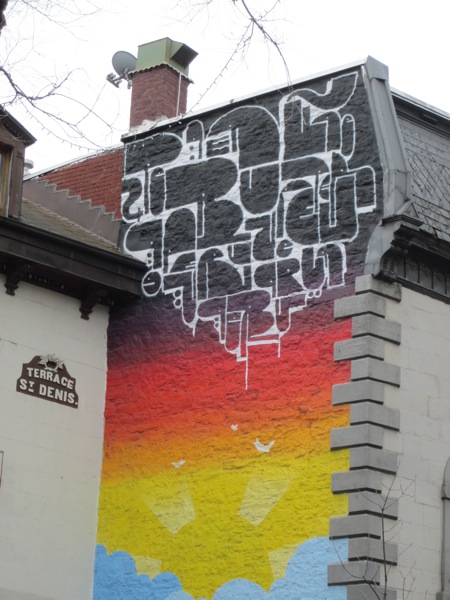
Glyphs
This is the upper part of a mural I spotted on Rue St. Denis while in Montreal recently. A cloud of glyphs pulsates with life.
There’s a playful Pac-Man-like quality to the forms and not all of them seem to be letters. Some are more like strange creatures.
The design teases us with the possibility of meaning, but I doubt it’s intended to make much sense. Can you discover a message here?
Fascinating design! Some appear as letters and others like birds. Thanks for sharing.
My pleasure! Thanks for your comment, Henry. You’re right, there seem to be some birds in the mix. A lot of beaks happening.
It looks like our world being put upside down :) the black part on top are the concrete jungle, the lower part are the Sun, cloud, sky… I like the sunbeam, white birds and the colour layers
Hi Andy, thanks for your comment. Yes, it’s like a city in the air, isn’t it? Now I am thinking of the movie Howl’s Moving Castle.